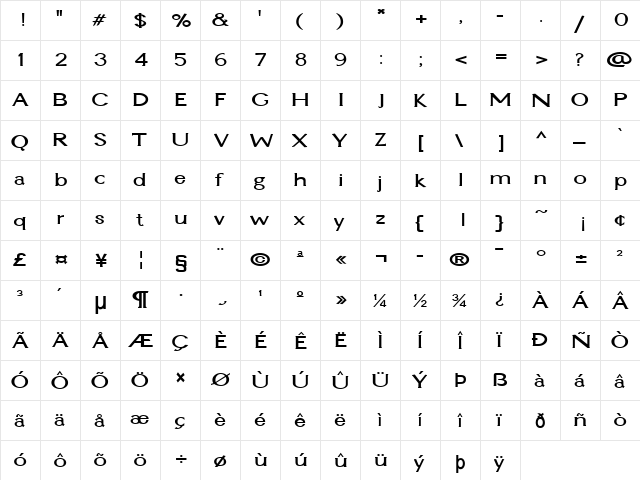
Ginger Bold
Design Context for Ginger Typeface
Ginger offers clean, dependable letterforms without strong stylistic allegiance, making it a practical choice for designers who need flexibility. Its bold stroke weight gives it real presence on the page.